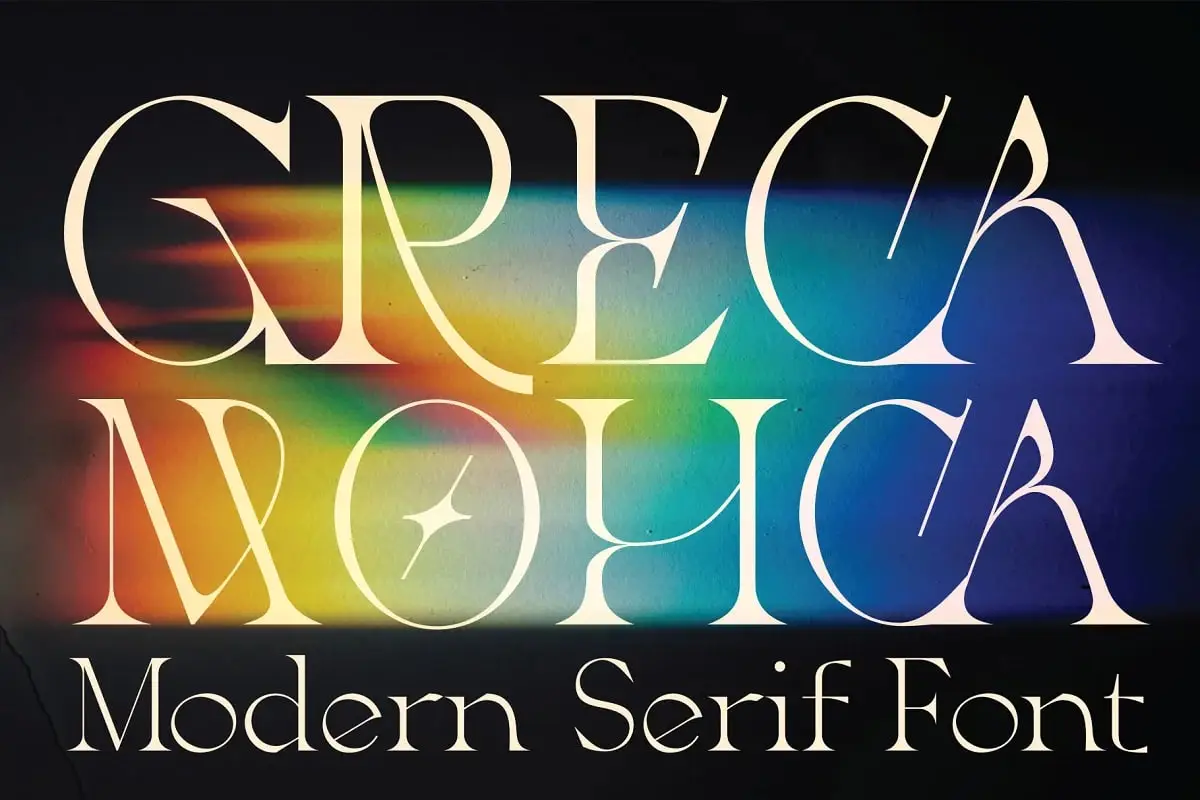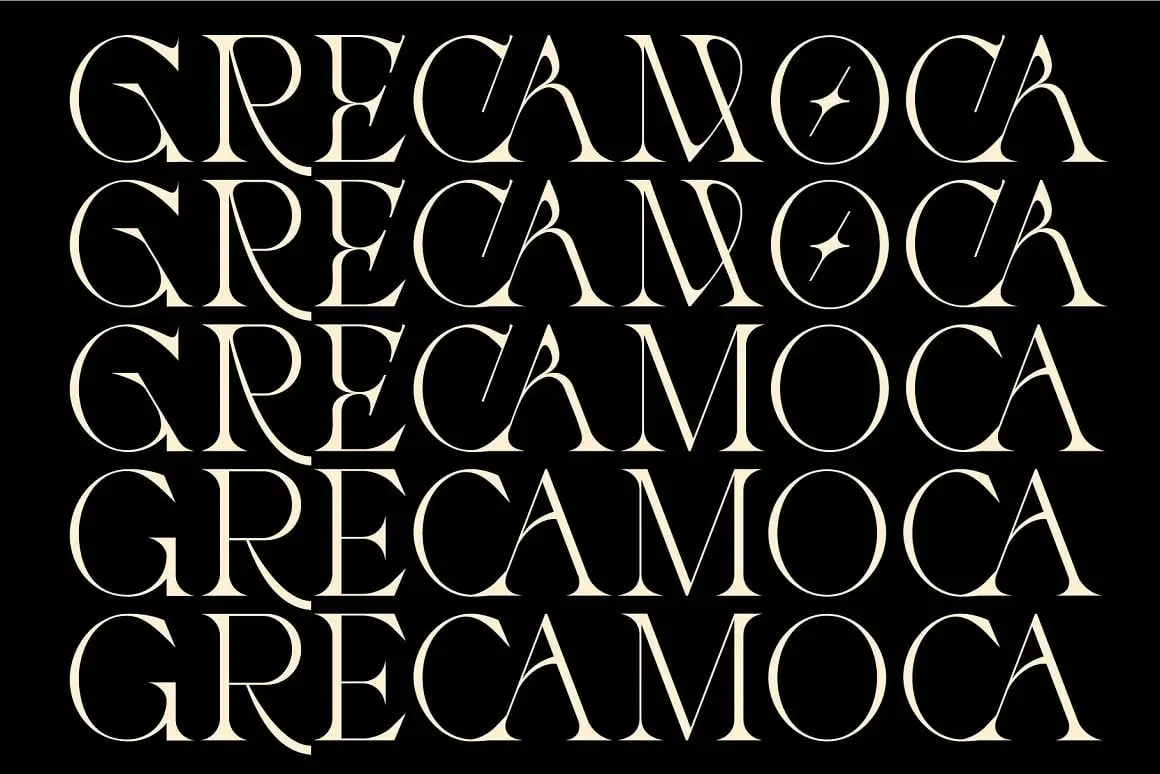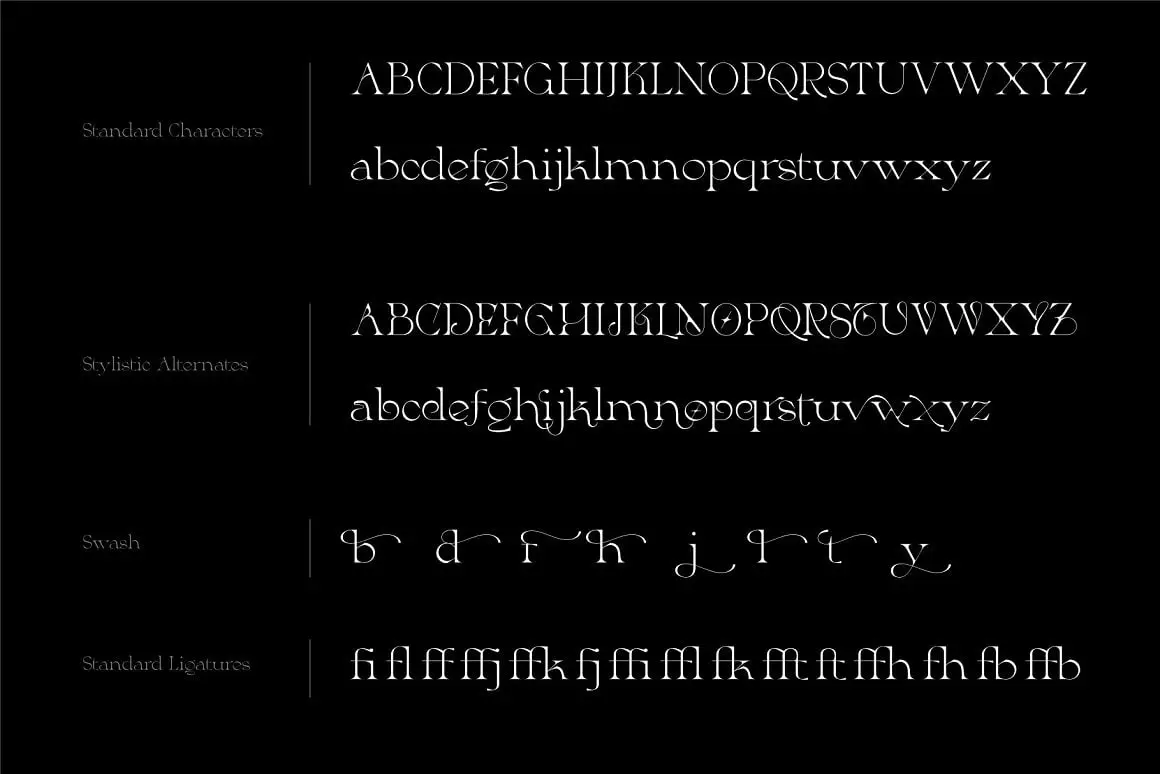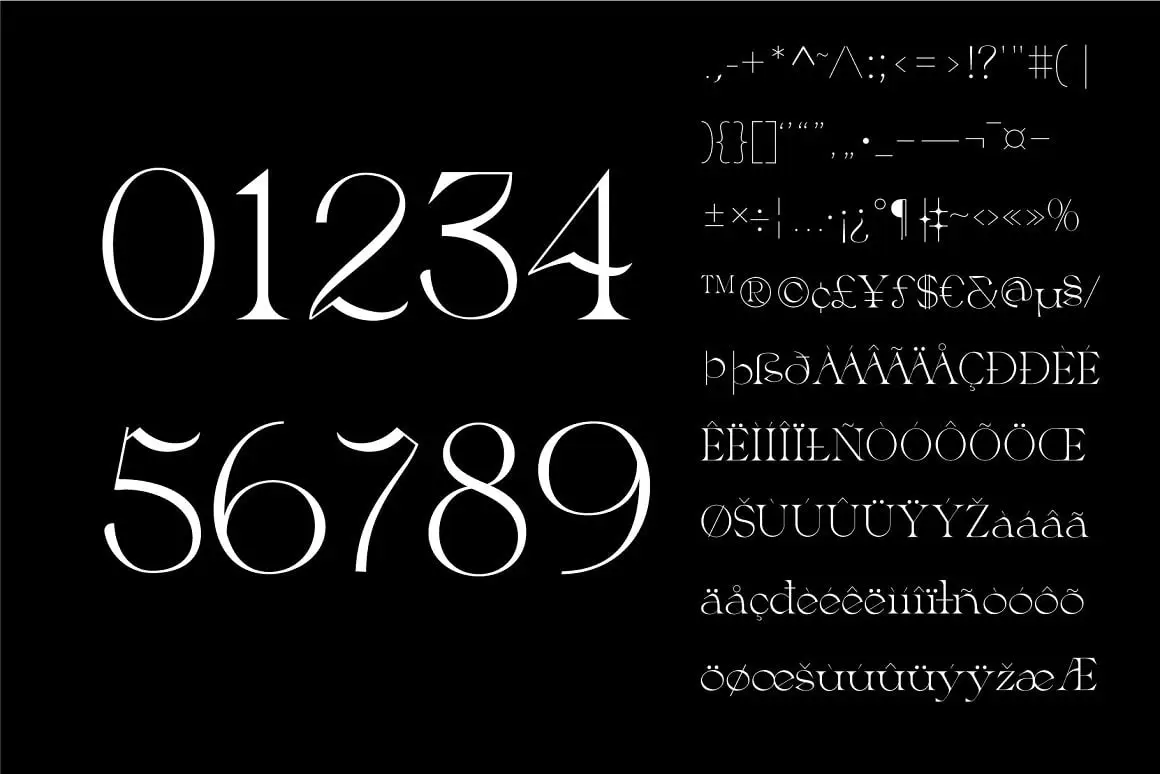
Greca-Modern Serif Font
Introducing the Greca-Modern Serif Font, a sophisticated typeface designed to elevate your creative projects. With its elegant curves and sharp serifs, this font combines classic charm with a contemporary twist, making it perfect for a variety of applications.
• Stylish serif design with modern aesthetics
• Multiple weights for versatile usage
• Clear readability for both print and digital formats
This font is ideal for branding, logo design, web content, and print materials such as invitations, business cards, and brochures. Its modern yet timeless appearance makes it suitable for both professional and personal projects.